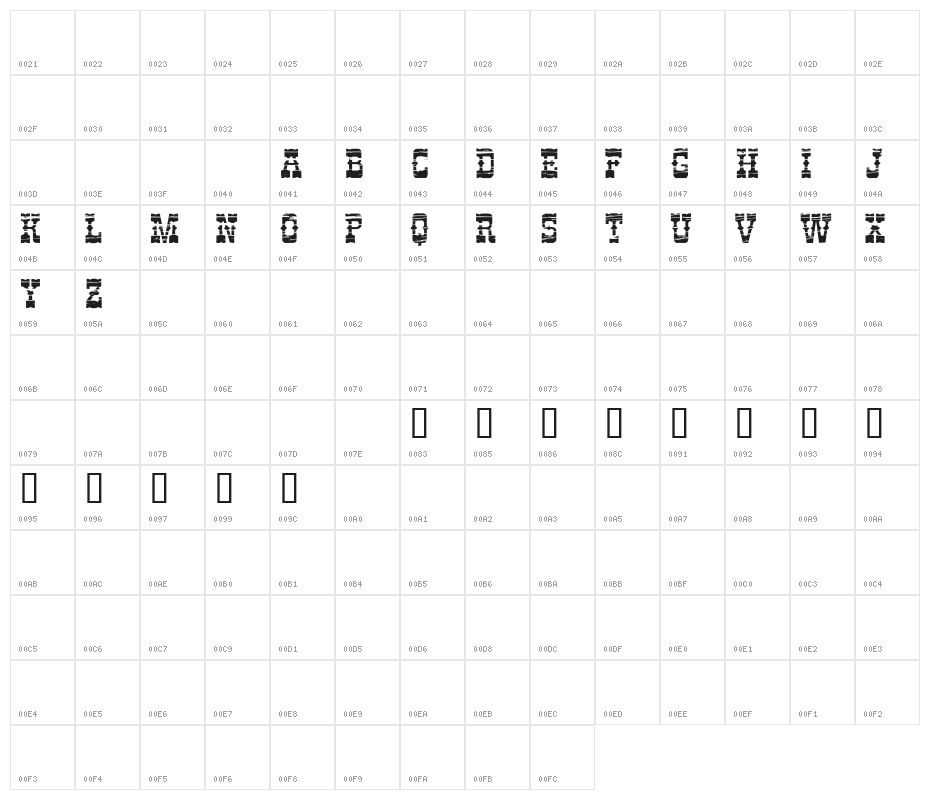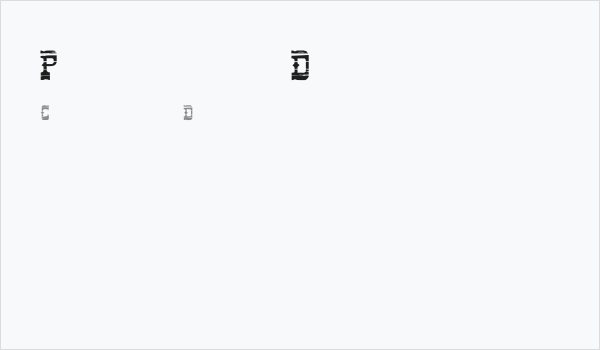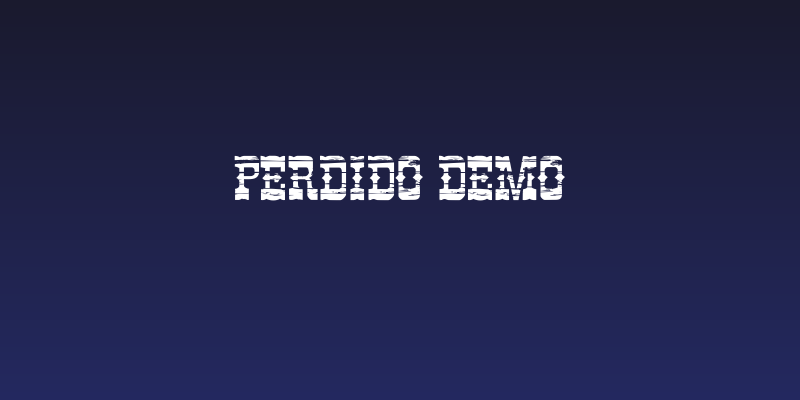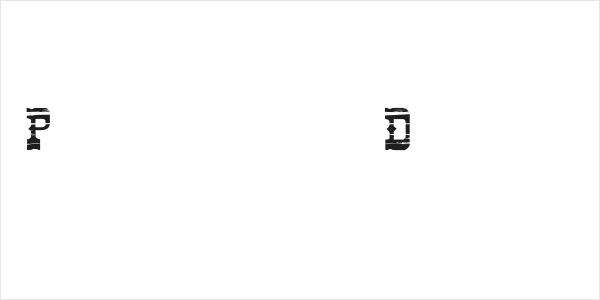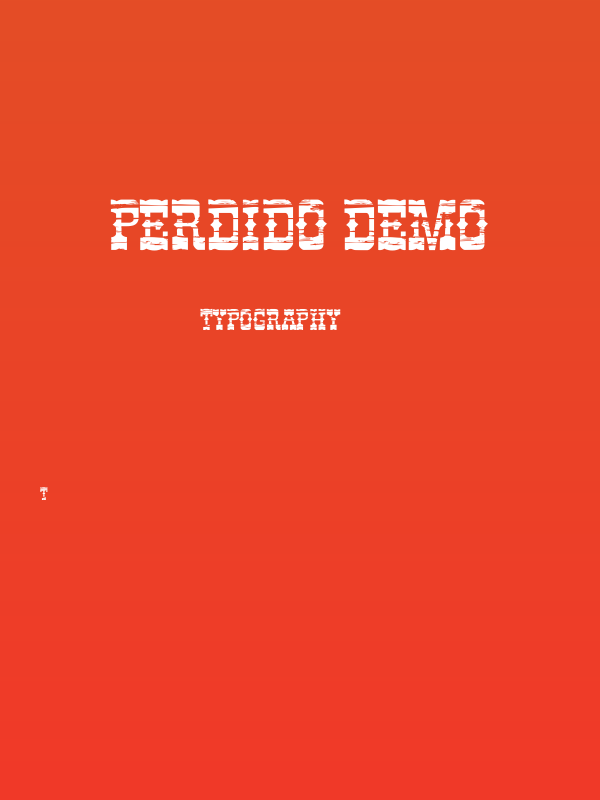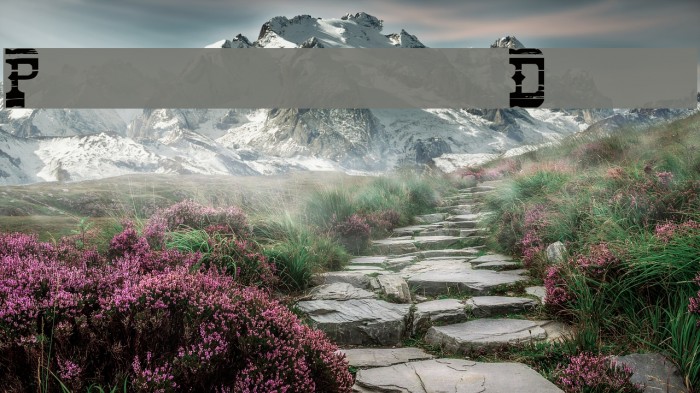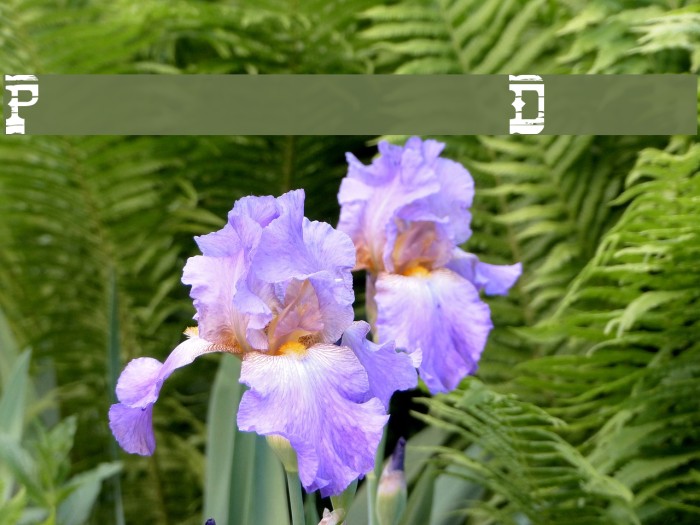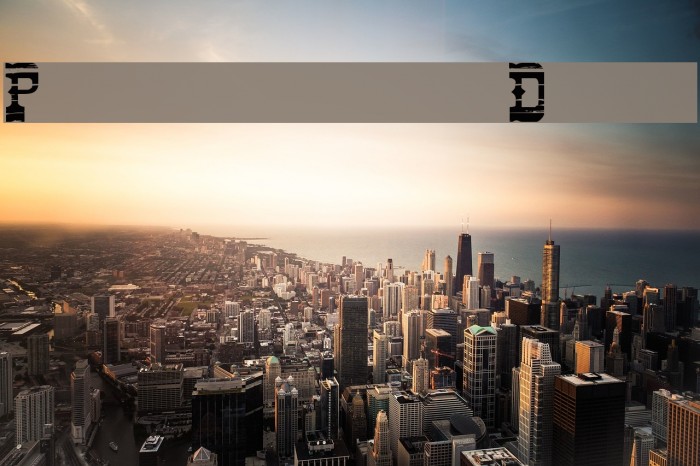
Perdido Demo Font
Perdido Demo Description
This font features a bold and rugged design with a distressed, grunge-like texture that gives it a unique, weathered appearance. The uppercase letters are prominent and impactful, making it ideal for attention-grabbing headlines or titles. The font's design incorporates irregular, jagged edges and a rough texture that suggests a sense of age and wear, reminiscent of vintage or industrial styles. Its boldness and distinctive character make it suitable for projects that require a strong visual statement.
| Overall Style | Vintage, Industrial |
| Proposed Projects | Ideal for posters, album covers, branding for edgy or vintage-themed products, and any design requiring a strong, impactful typeface. |